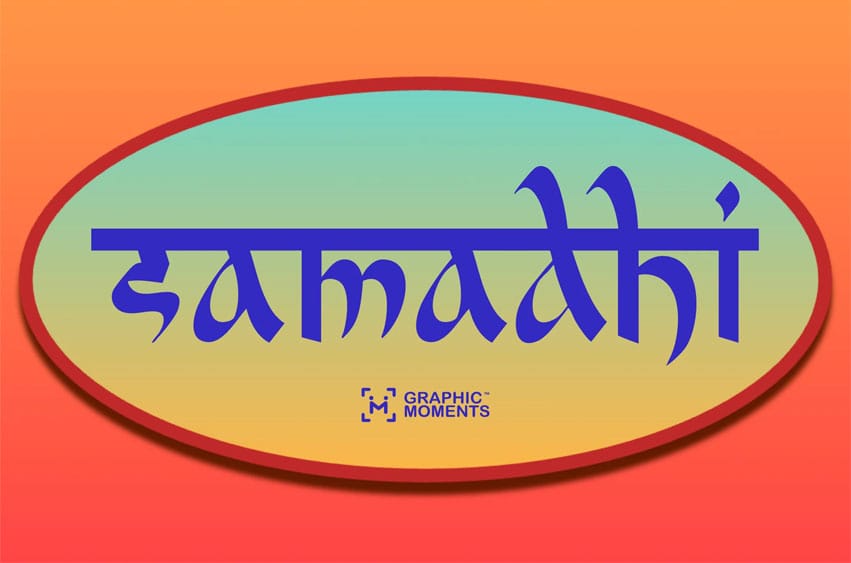
Samadhi Font is a Spiritual Hindi Display Font with Indian Essence. Samadhi is a graceful Hindi-style display font inspired by the profound beauty of Indian scripts. Rooted in the artistic forms of Devanagari and Devnagri, it combines the essence of Hindi, Marathi, Gujarati, Malayalam, and Telugu calligraphy into a harmonious type design. Each curve is carefully shaped to reflect balance and mindfulness, embodying the Sanskrit philosophy behind the word “Samadhi”—a state of spiritual unity and calm. Perfect for cultural designs, religious projects, or Bollywood-inspired titles, this font captures the soul of India with elegance and authenticity.
Brimming with the spirit of Hindu culture and the celebration of festivals like Diwali and Deepavali, Samadhi radiates peace, devotion, and tradition. Its design bridges ancient Indian artistry with modern visual storytelling, making it ideal for meditation brands, yoga studios, festive invitations, and creative cultural campaigns. Samadhi is more than a font—it’s a typographic reflection of India’s timeless spirituality and its deep connection to art and harmony.